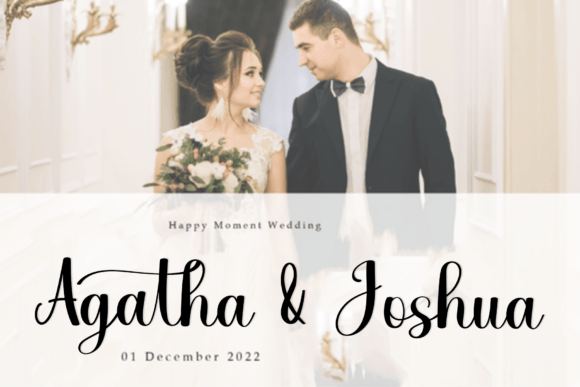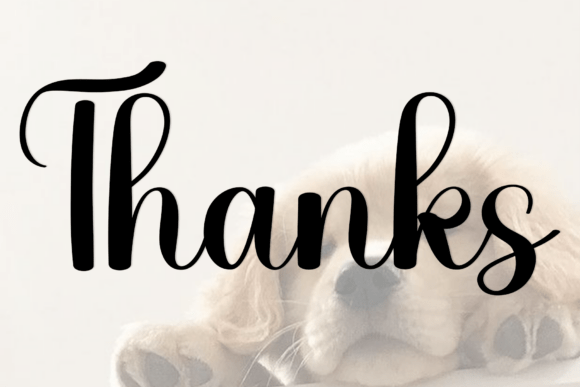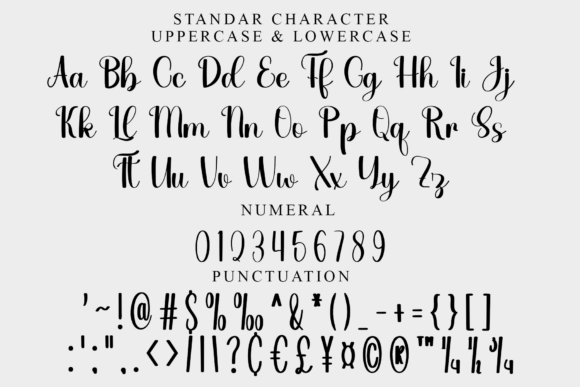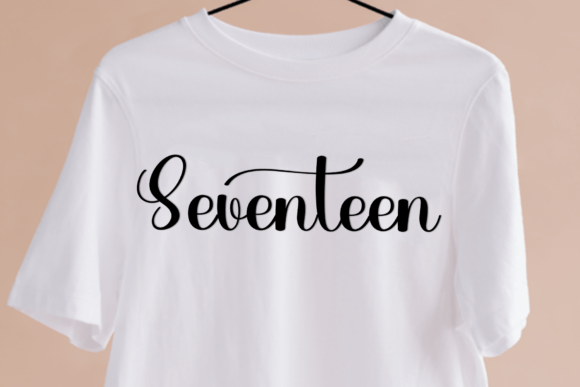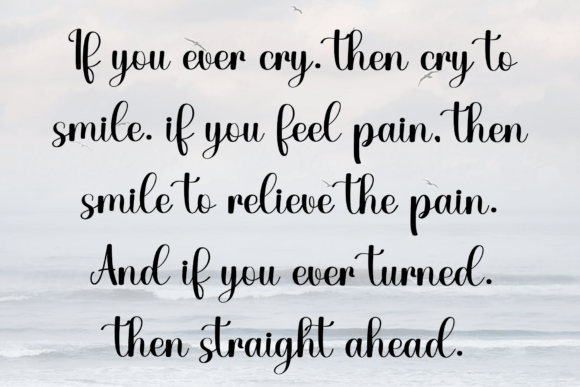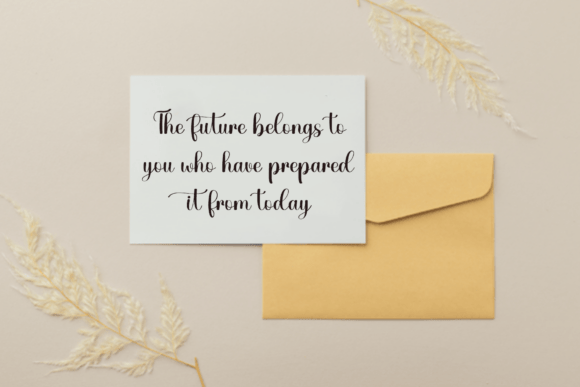
Unlock the Magic of Beautiful Shopia Font
As the snowflakes start to fall and the lights on the Christmas tree twinkle to life, there’s something special about this time of year that sparks our creativity. For designers, the holiday season is the perfect opportunity to get crafty and show off their skills. And what better way to do that than with a font that embodies the spirit of the season?
Enter Beautiful Shopia Font, a festive and merry typeface that captures the essence of the holiday season. With its decorative elements and whimsical flair, it adds a touch of enchantment to your designs, making it perfect for greeting cards, gift tags, and holiday-themed projects. Whether you’re a seasoned pro or just starting out, Beautiful Shopia Font is a valuable tool in your design arsenal, allowing you to bring a cheerful and nostalgic ambiance to your words.
• Unique Characteristics: Elegant script, fluid connections, and subtle flair, making it ideal for creative and luxury branding
Beautiful Shopia Font Review
Overall, I have mixed feelings about the Beautiful Shopia Font. It’s a beautiful script font, but it’s not without its flaws.
• Elegant, flowing lines that evoke a sense of sophistication.
• Highly customizable, with a range of weights and styles to choose from.
• Beautifully crafted ligatures and swashes that add a touch of whimsy.
• Works well for a variety of applications, from fashion and beauty to lifestyle and entertainment.
• Some characters may not be as well-designed as others, resulting in a somewhat inconsistent look.
• Not ideal for use in small text sizes, as the font can become difficult to read.
• Limited support for non-Latin scripts, which may be a concern for global brands.
While the Beautiful Shopia Font is a beautiful addition to any designer’s toolkit, it’s not without its limitations. With careful use and attention to detail, it can be a powerful tool for creating stunning designs. However, it’s not a font for every occasion, and may not be the best choice for every project.
For the most effective use of the Beautiful Shopia Font, consider the following tips:
– Use it for titles, headings, and other emphasis text to create a professional look.
– Pair it with other fonts to create a unique and visually appealing design.
– Experiment with different font sizes and colors to achieve the desired effect.
Alternatives to Beautiful Shopia Font
Playfair Display is an elegant and luxurious serif font perfect for use in high-end branding, luxury packaging, and special events. It is ideal for creating a sense of sophistication and refinement. When to use: Luxury branding, high-end packaging, special events. Comparison: While Beautiful Shopia Font is more playful and whimsical, Playfair Display is more formal and elegant.
Great Vibes is a modern and stylish script font ideal for use in creative branding, event invitations, and digital media. It is perfect for creating a sense of fun and playfulness. When to use: Creative branding, event invitations, digital media. Comparison: While Beautiful Shopia Font is more vintage-inspired, Great Vibes is more modern and trendy.
Alex Brush is a beautiful and elegant script font perfect for use in branding, invitations, and digital media. It is ideal for creating a sense of sophistication and romance. When to use: Branding, invitations, digital media. Comparison: While Beautiful Shopia Font is more playful and whimsical, Alex Brush is more elegant and refined.
Carolyna Pro is a modern and stylish serif font ideal for use in branding, packaging, and digital media. It is perfect for creating a sense of sophistication and elegance. When to use: Branding, packaging, digital media. Comparison: While Beautiful Shopia Font is more vintage-inspired, Carolyna Pro is more modern and versatile.